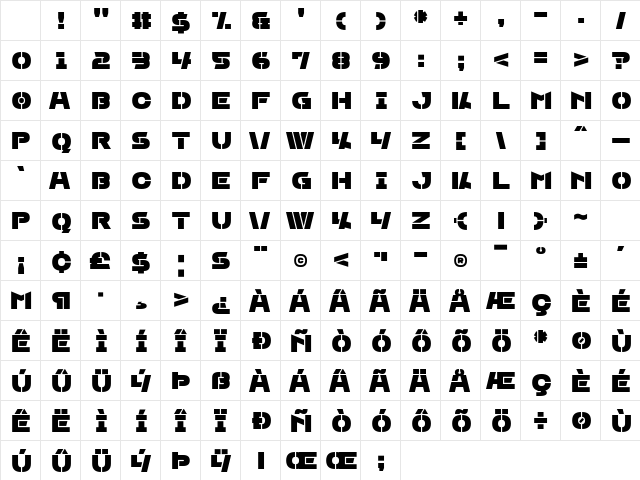
Complete Half Myself Straight Regular glyph index. Displaying only characters natively supported by Half Myself Straight Regular font.
Half Myself Straight is a composed and adaptable typeface that performs quietly and consistently across a wide range of design contexts.